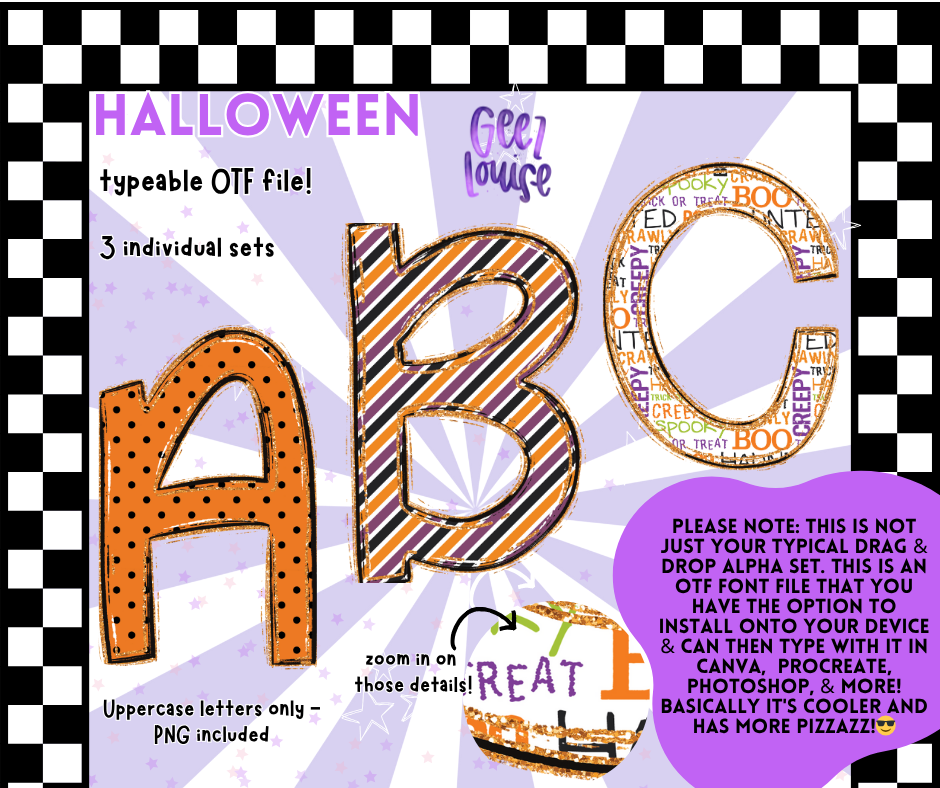
Halloween OTF Font & PNG Alpha Set – Spooky Words, Stripes & Dots (Uppercase)
Say hello to your new favorite spooky-season font! The Halloween OTF Font + PNG Alpha Set comes loaded with three bold styles—classic polka dots, diagonal stripes, and a Halloween word collage—all in vibrant orange, black, and purple tones.
✔ Letter styles: orange polka dot, candy-corn-style stripes, Halloween words